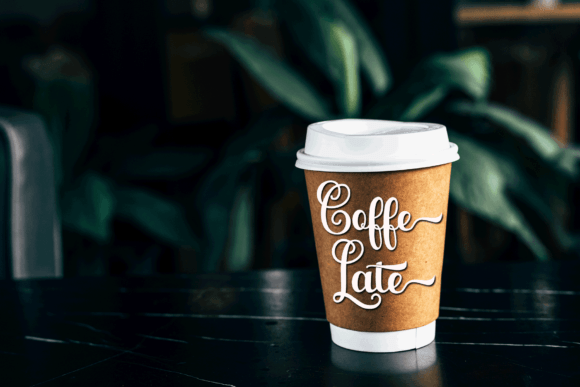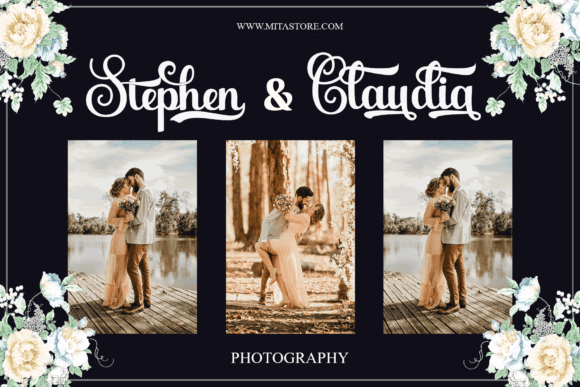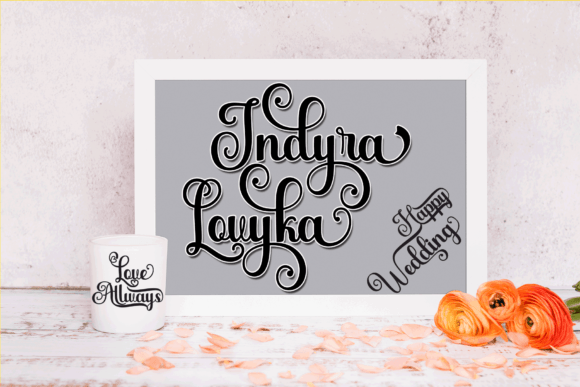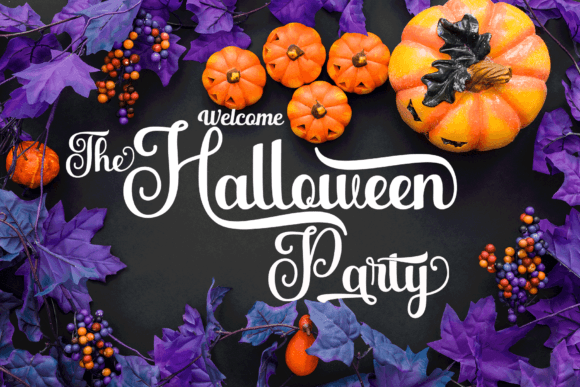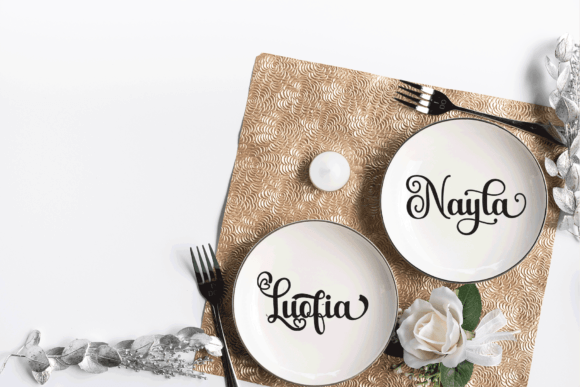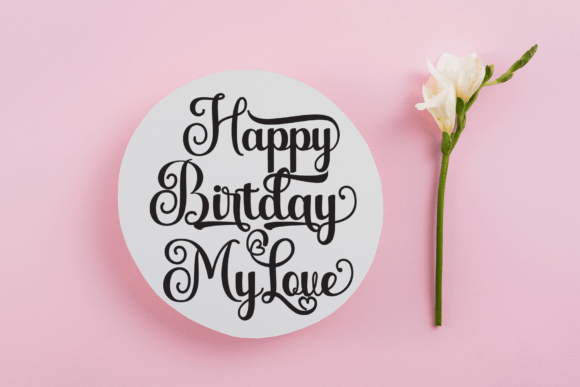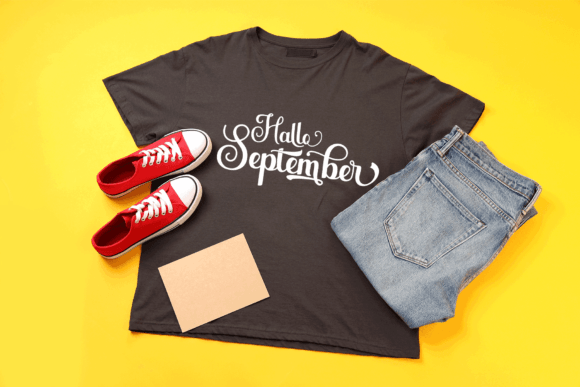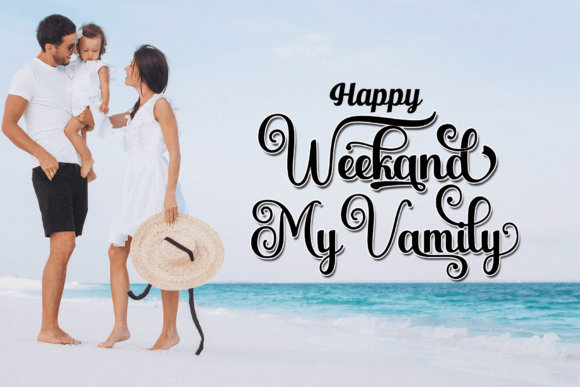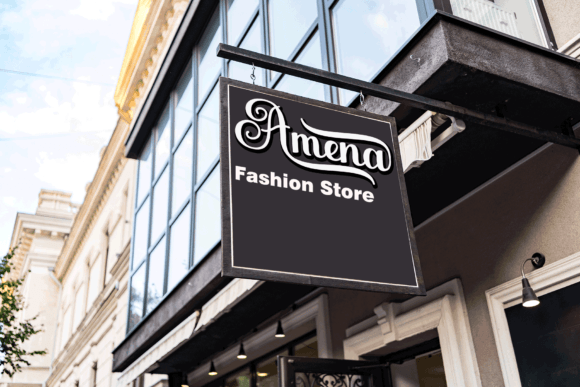
Nighfyla Font
Introducing Nighfyla Font
The Nighfyla Font is an exquisite handwritten typeface that combines the timeless elegance of calligraphy with a fresh, modern feel. It stands out in your design projects, offering a balance of classic charm and contemporary appeal.
Key Features of Nighfyla Font
• Classy Calligraphic Influences: Nighfyla draws inspiration from calligraphy, giving it a sophisticated look. The carefully crafted strokes and letterforms add elegance, making it suitable for upscale designs.
• Contemporary Freshness: While embracing calligraphic influences, Nighfyla also incorporates a modern aesthetic. This blend allows the font to fit various design styles and contexts.
• Versatility: Use Nighfyla for wedding invitations, branding, logos, greeting cards, or any project that demands class. This font elevates your designs with its elegant touch.
• PUA Encoding: The font is PUA encoded, providing access to many glyphs and ligatures. These characters let you add decorative elements and unique touches to your text, enhancing visual appeal.
The Impact of Using Nighfyla
This font makes your designs visually captivating and memorable. It serves as a reliable tool for designers creating projects that stand out with elegance. Its balanced form ensures your designs are refined and captivating.
The Value It Brings
This typeface excels in combining contemporary aesthetics with classic elegance. By choosing Nighfyla, you ensure your designs are visually appealing and sophisticated.
This font is ideal for various creative projects beyond traditional uses. It enhances digital designs with its elegant flair, making it suitable for websites, brochures, or mobile interfaces. The Nighfyla Font adapts well to different screen sizes while maintaining its charm. As design trends evolve, this font remains relevant due to its timeless appeal, balancing style with functionality effectively.